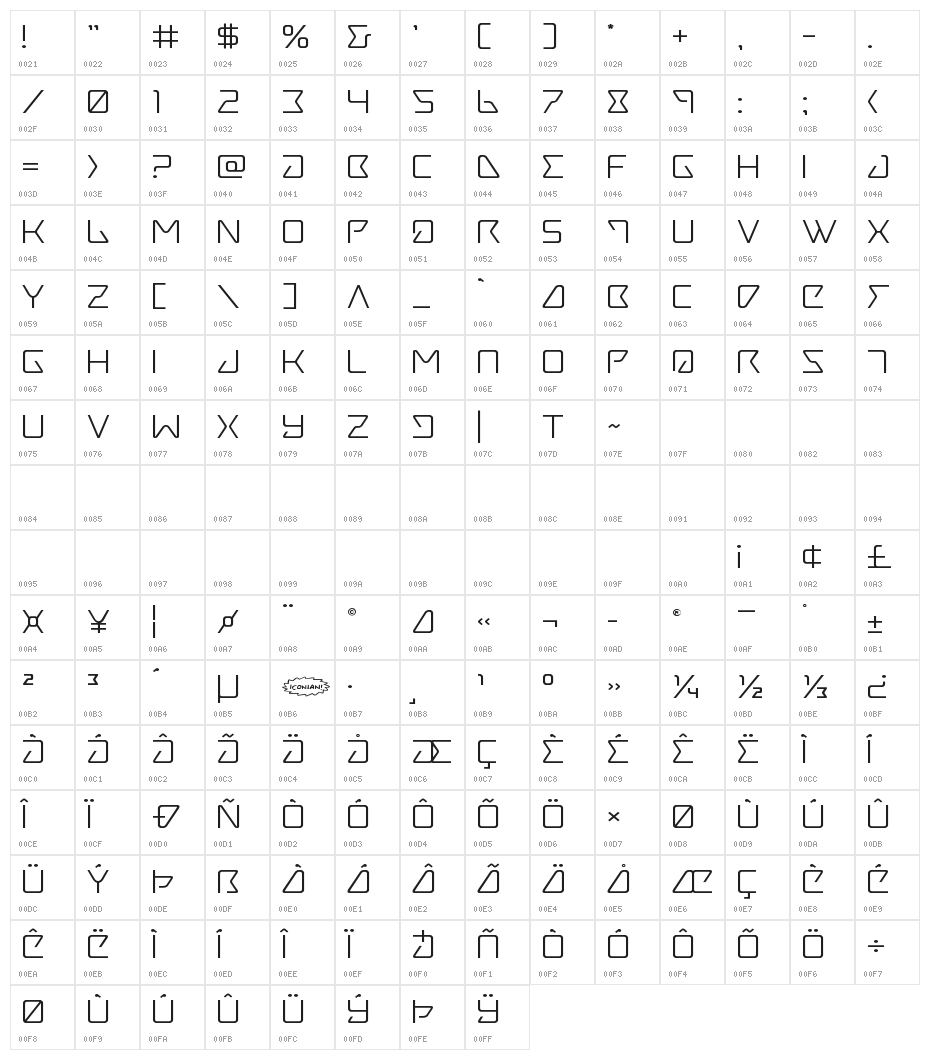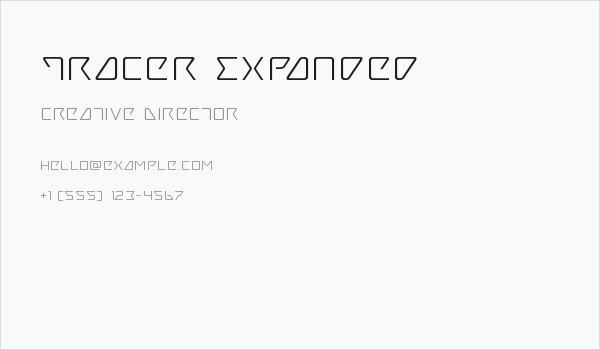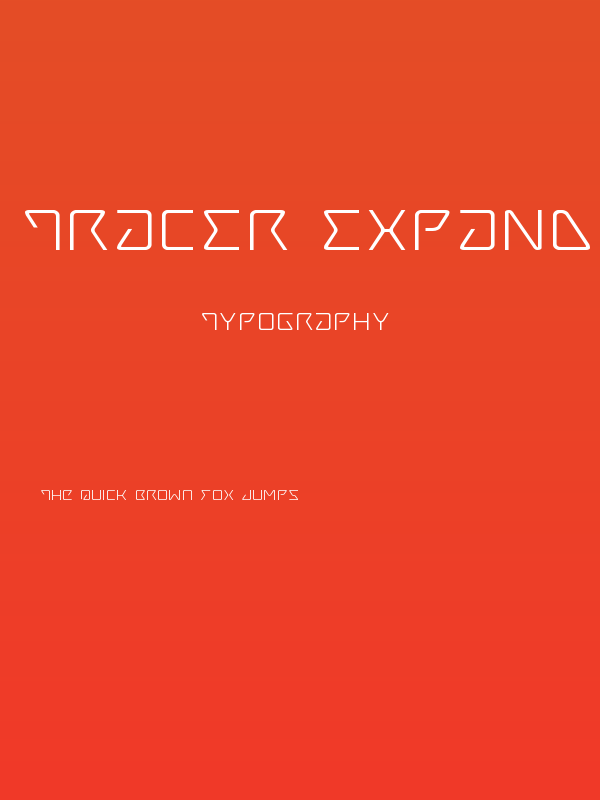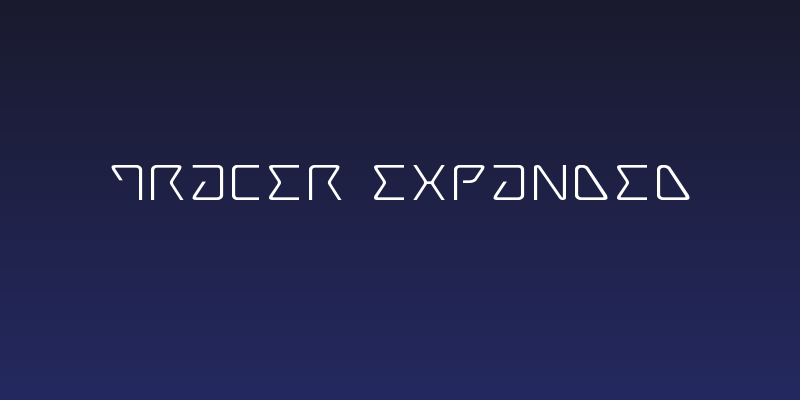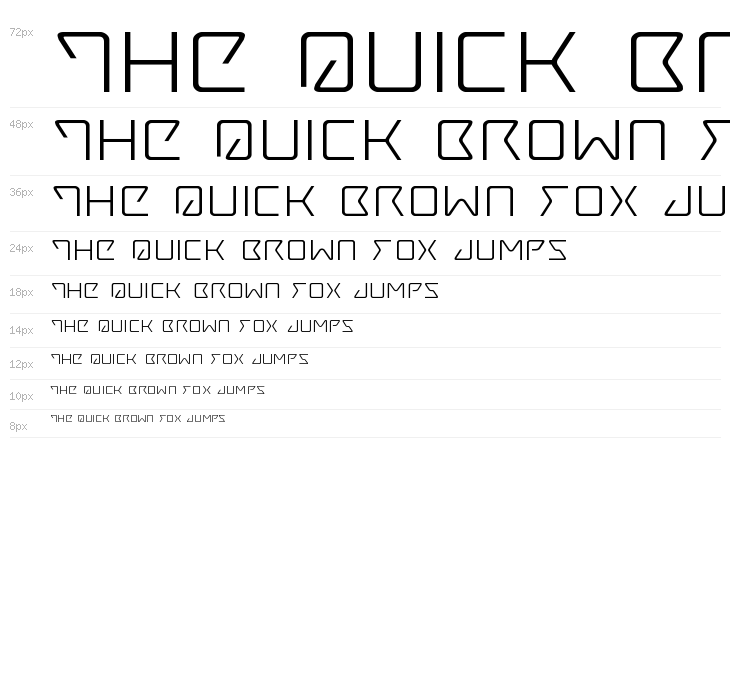
Tracer Expanded Font
Tracer Expanded Description
This font features a futuristic and geometric design with clean, angular lines and a distinct, modern aesthetic. The characters are composed of straight edges and sharp angles, creating a sense of precision and technological advancement. The uppercase and lowercase letters maintain a consistent style, with unique shapes that emphasize a digital or sci-fi theme. The numerals and special characters follow the same design principles, ensuring a cohesive look across all elements. This font's expanded width and uniform stroke weight contribute to its bold and striking appearance, making it ideal for projects that require a contemporary and innovative feel.
| Use Case | Headlines, Logos, Digital interfaces |
| Proposed Projects | Ideal for tech branding, sci-fi movie posters, video game interfaces, and digital artwork. |